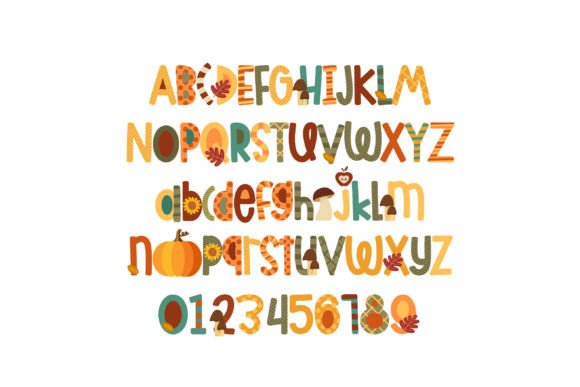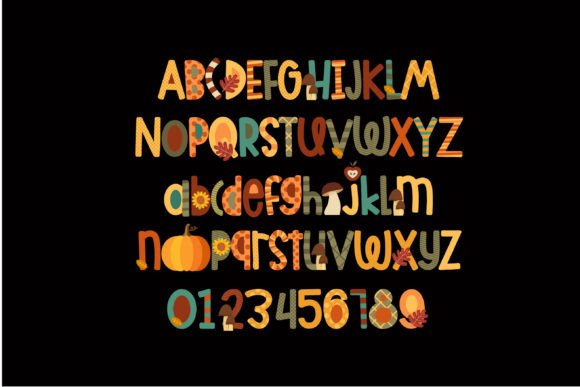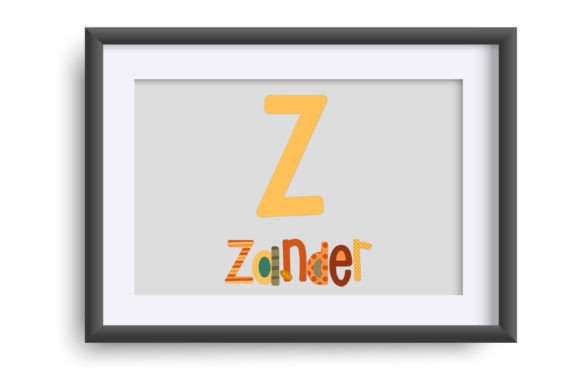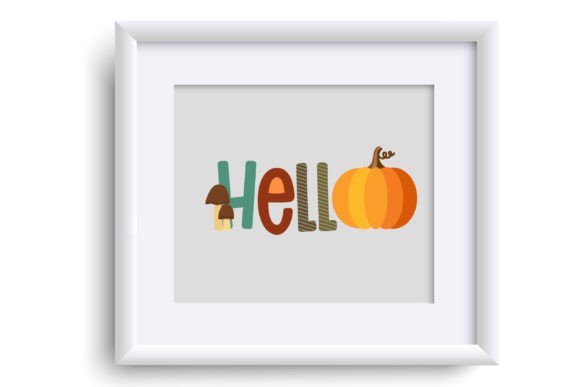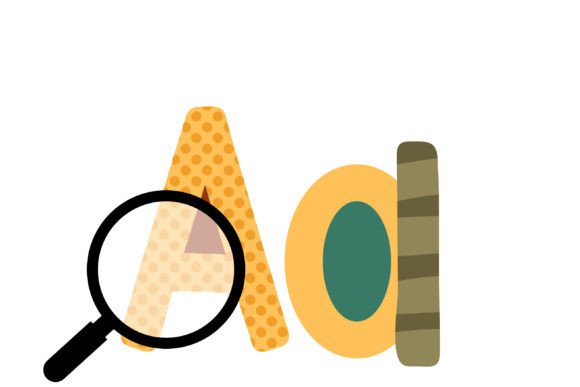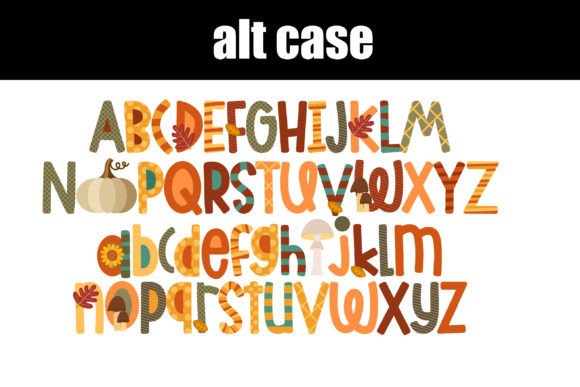
Introducing Dear Scarecrow Font: A Vibrant Autumn-Inspired Typeface
Are you looking for a unique and creative font to add a touch of personality to your designs? Look no further than the Dear Scarecrow Font, a stunning full-color typeface that combines autumn elements with creative lettering. This beautiful font is perfect for designers and crafters who want to add a pop of color and whimsy to their projects.
What Makes Dear Scarecrow Font Special?
The Dear Scarecrow Font features a range of creative and colorful lettering, with each letter and character designed to evoke the warmth and coziness of autumn. The font comes in a full-color version, with an alternate version of each letter in a different color that can be accessed through your system character map. This means you can mix and match different colors to create unique and eye-catching text designs.
The Benefits of Full-Color SVG Fonts
Full-color SVG fonts like Dear Scarecrow offer a range of benefits for designers and crafters. For one, they provide a unique and creative way to add personality to your designs. With a full range of colors and styles to choose from, you can create anything from simple text logos to complex and intricate designs.
Using Dear Scarecrow Font in Your Designs
So, how can you use the Dear Scarecrow Font in your designs? The possibilities are endless! Here are a few ideas to get you started:
- Create a custom logo or branding for your business or project
- Add a touch of autumn whimsy to your social media graphics or blog posts
- Design a set of custom greeting cards or invitations
- Use the font to create a unique and eye-catching title or header for your website or blog
The Dear Scarecrow Font is a beautiful and versatile typeface that’s perfect for designers and crafters who want to add a touch of personality to their designs. With its vibrant autumn colors and creative lettering, this font is sure to stand out. Whether you’re creating a custom logo, social media graphics, or a set of greeting cards, the Dear Scarecrow Font is a great choice. So why not give it a try and see what amazing designs you can create?